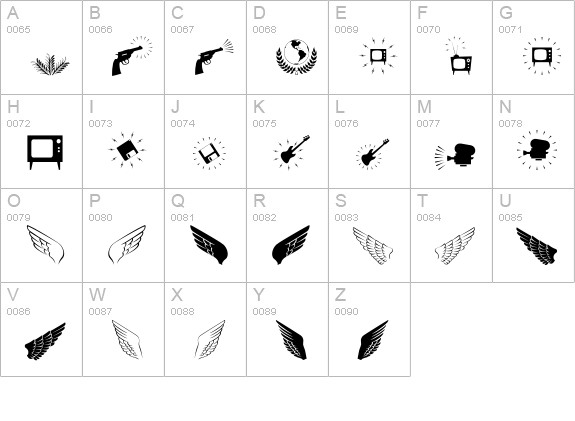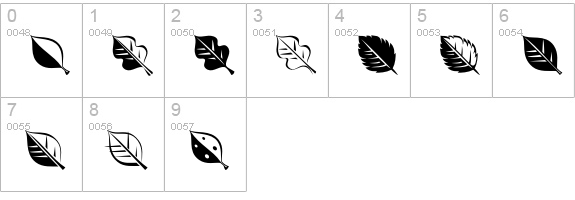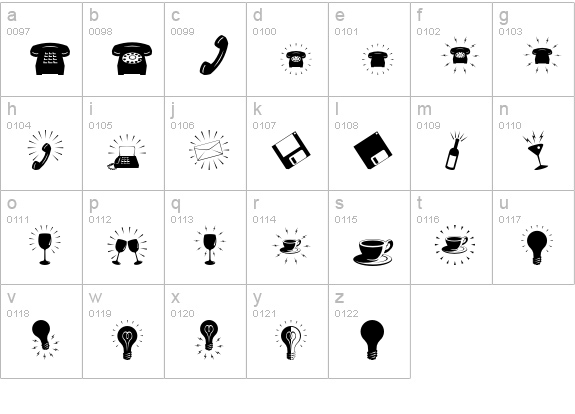
AltemusCutsThree Font Details
AltemusCutsThree is a striking and bold display font that exudes a sense of creativity and modernity. With its sharp edges and unique design, this font is perfect for making a statement in any project. Whether you're looking to add a touch of edginess to your branding, create eye-catching headlines, or design impactful posters, AltemusCutsThree is sure to stand out. What makes AltemusCutsThree even more appealing is that it is available for free download at FontsMarket.com. This means you can easily access this stylish font and incorporate it into your designs without any cost involved. Don't miss out on the opportunity to elevate your creative projects with AltemusCutsThree - download it for free today!